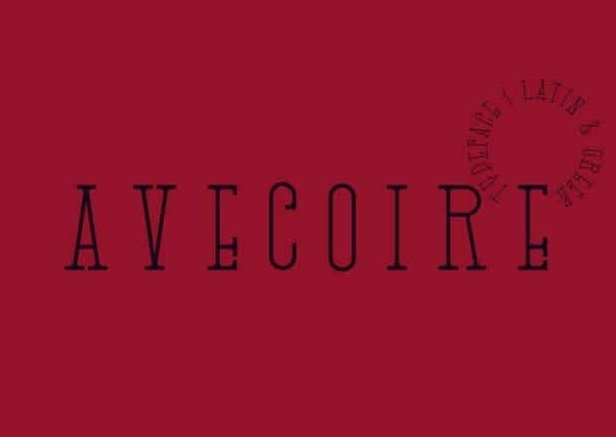
Avecoire Slab Serif Font
Avecoire Slab Serif Font is a futuristic modern slab serif style with all-caps, It’s designed and shared by Iordanis Passas . A free typeface inspired by Art Deco. It’s elegant vintage style is perfect for logos, branding, signage, posters and other display use. The font comes with all caps letters, numbers and symbols, supports Latin & Greek.